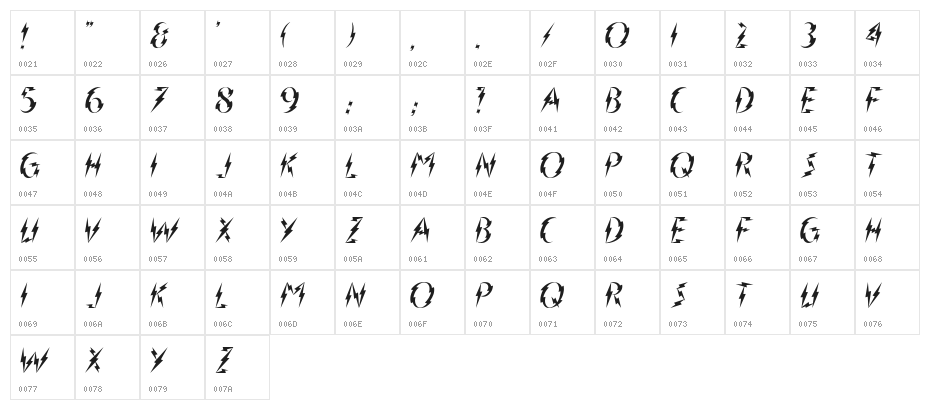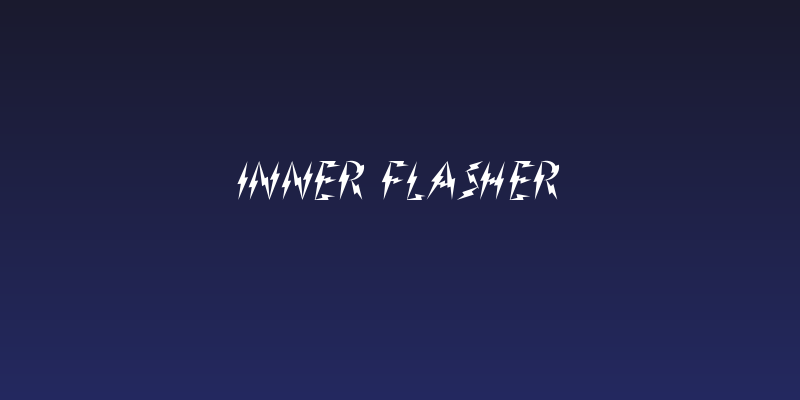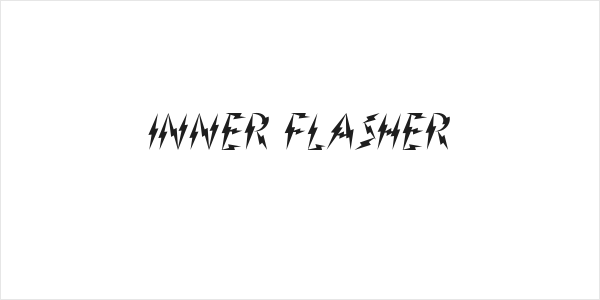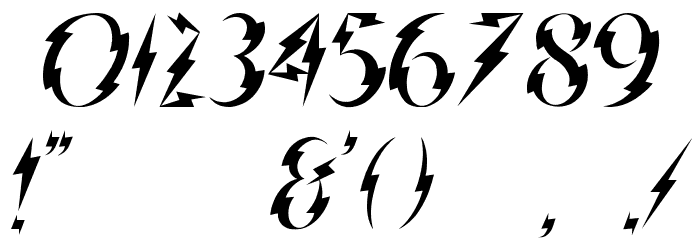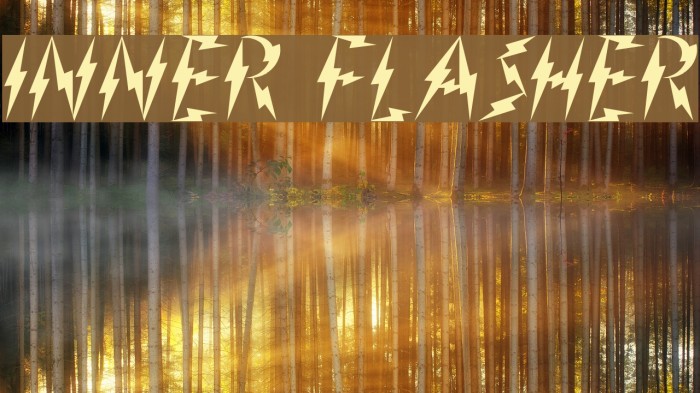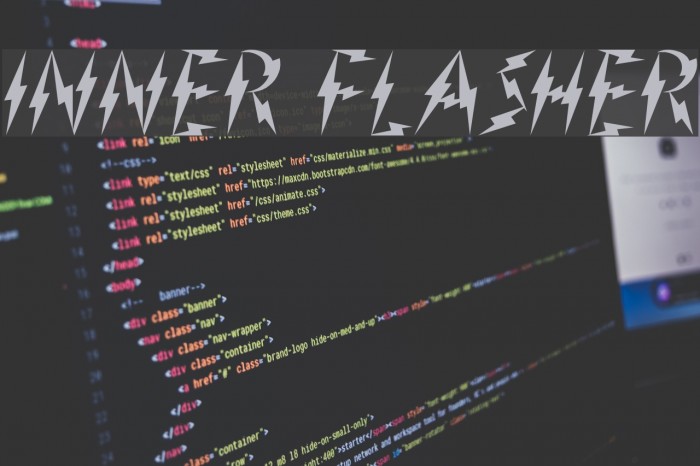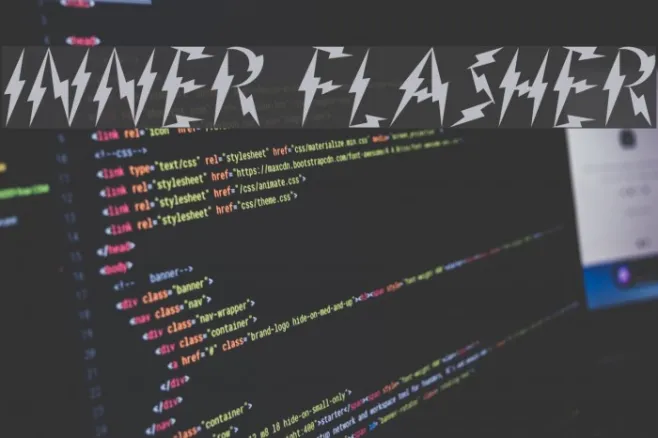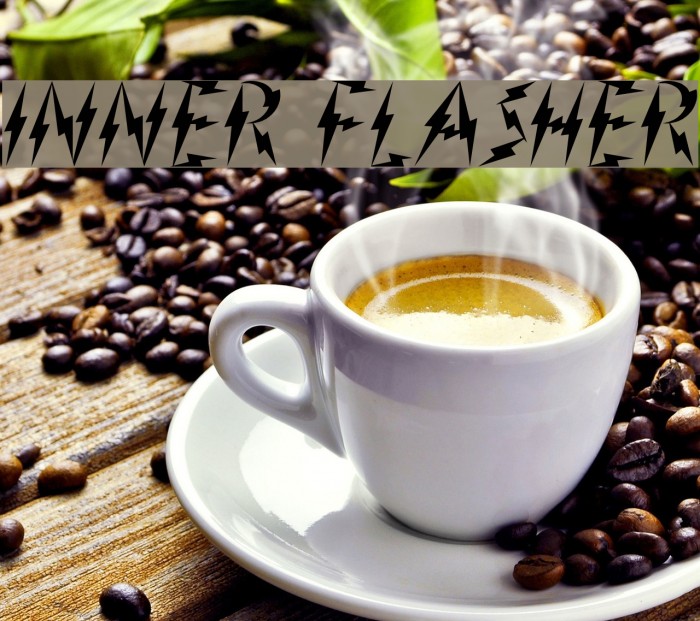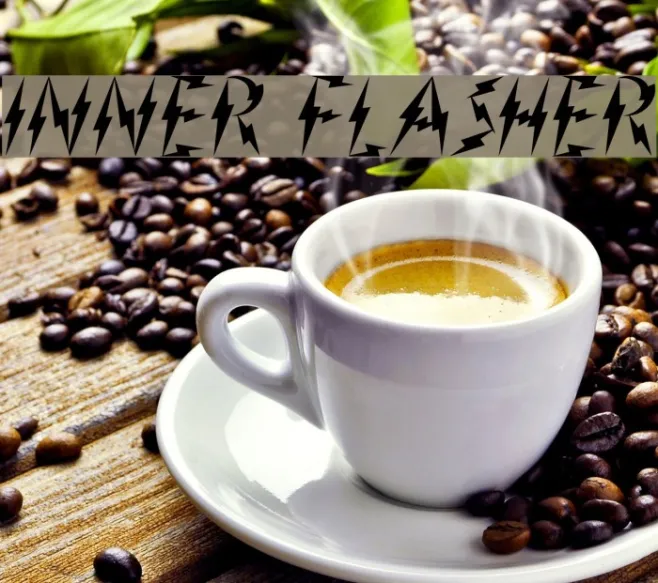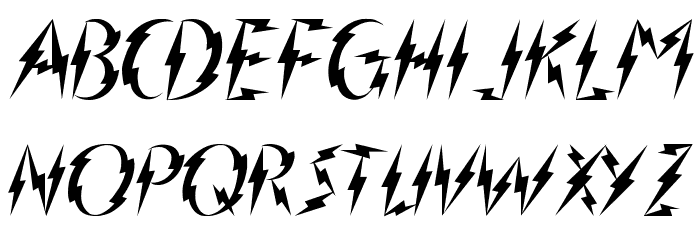
Inner Flasher Font
Inner Flasher Description
This font features a bold and dynamic design with sharp, angular edges that give it a lightning-like appearance. The characters are highly stylized, with jagged lines and pointed tips, creating a sense of movement and energy. The uppercase and lowercase letters maintain a consistent style, emphasizing the font's unique and striking aesthetic. Numbers and special characters follow the same design principles, ensuring a cohesive look across all glyphs. This font is ideal for projects that require a bold statement and a modern, edgy feel.
| Proposed Projects | Perfect for music album covers, sports team logos, event posters, or any project needing a bold, energetic typeface. |